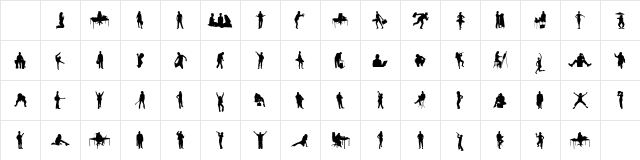
Complete Human Silhouettes Free Two Regular glyph index. Displaying only characters natively supported by Human Silhouettes Free Two Regular font.
Human Silhouettes Free Two is a composed and adaptable typeface that performs quietly and consistently across a wide range of design contexts.
Pro Tip: Use Human Silhouettes Free Two in both headline and body roles to test its range before committing to a single application.